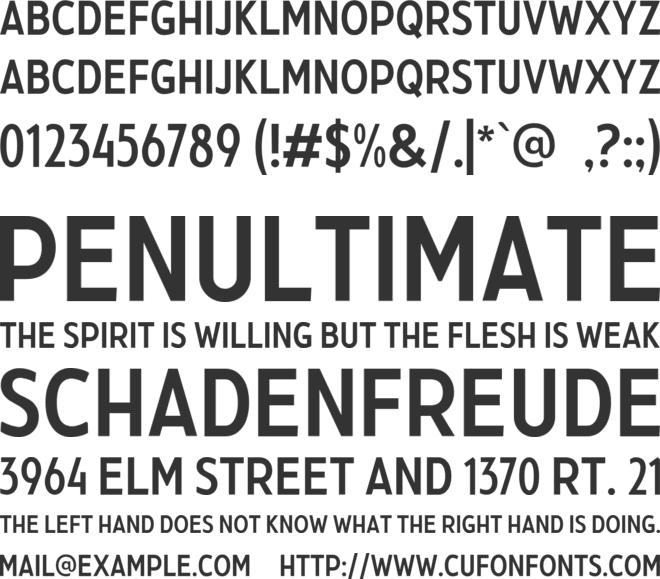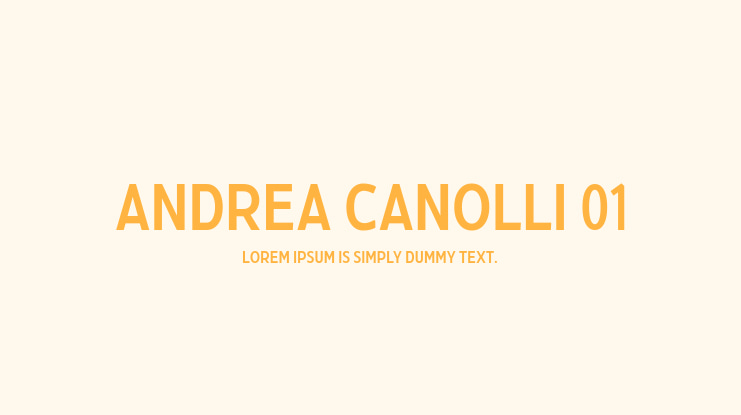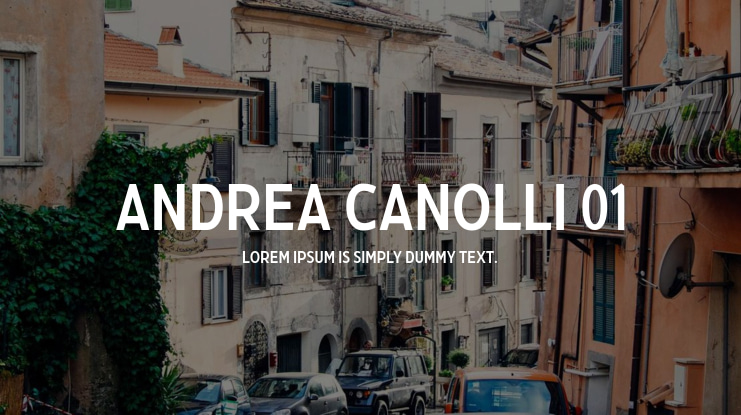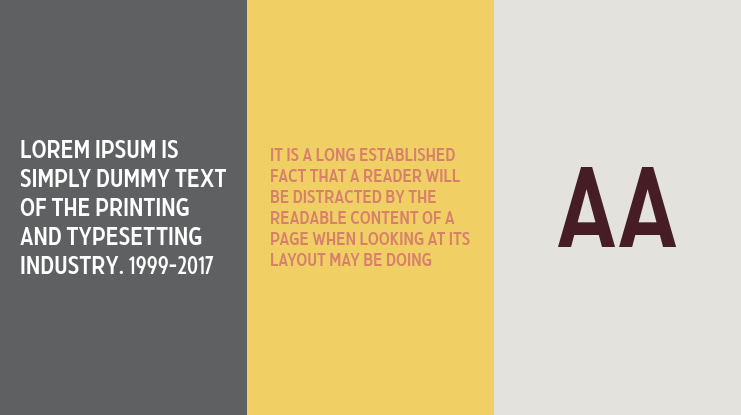
Andrea Canolli 01 Font
Andrea Canolli is typefaces made for football/soccer or other sport jersey/kit name and number.
Complete with 7 different styles of numeral that you can choose for your team.
Standard punctuation and multilingual characters are already included.
Even though is made for sports, with san serif style as a base font makes Andrea Canolli also good for other purpose.
It contains only 1 styles of numeral (full version has 7 styles).